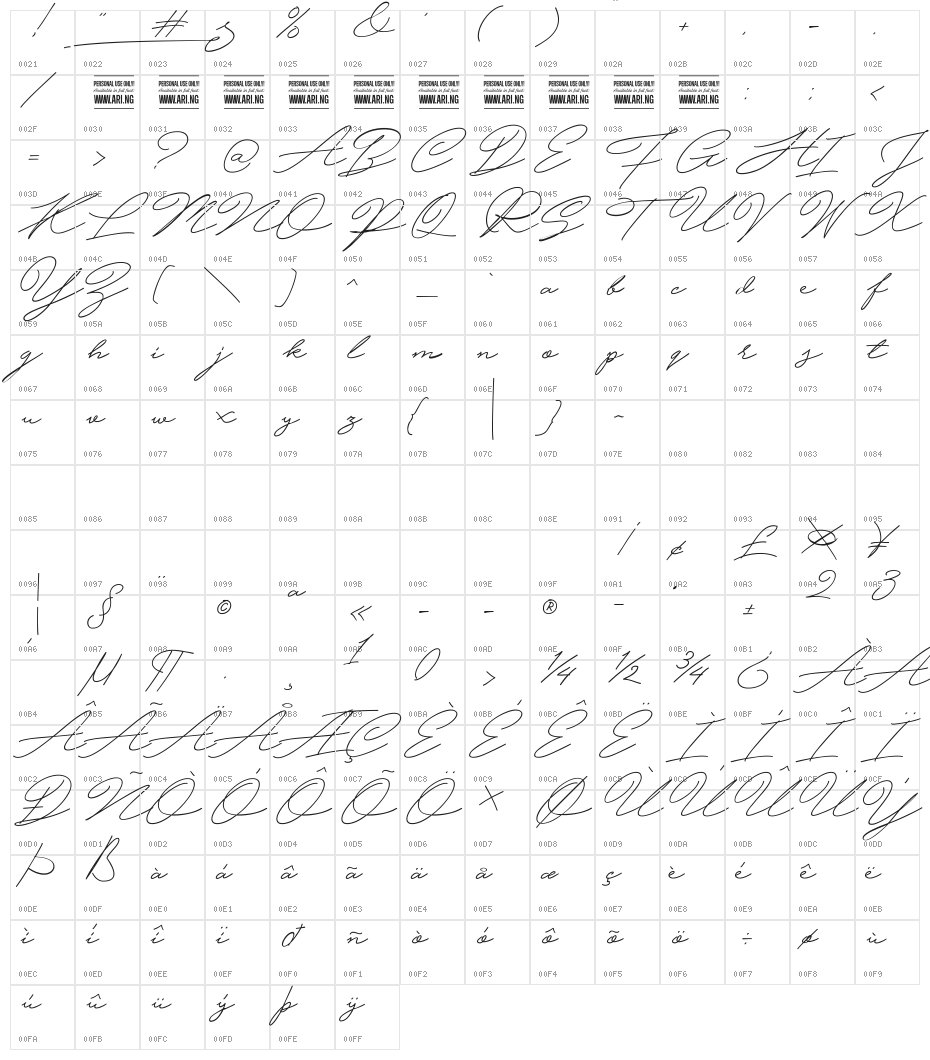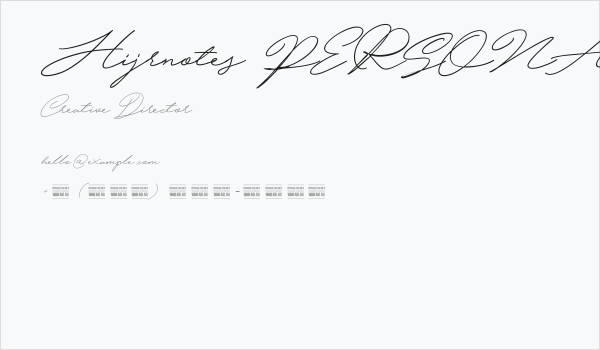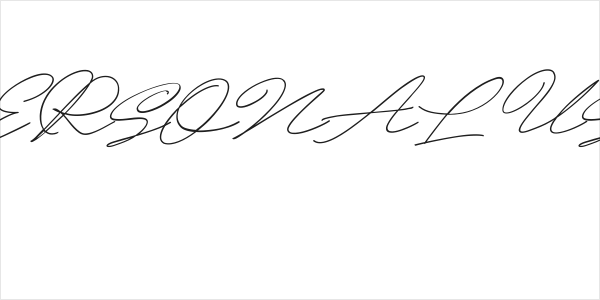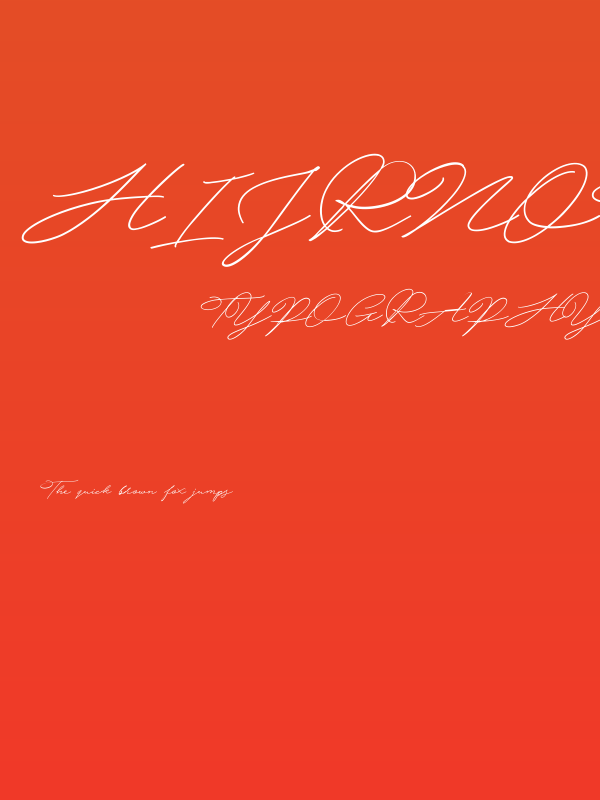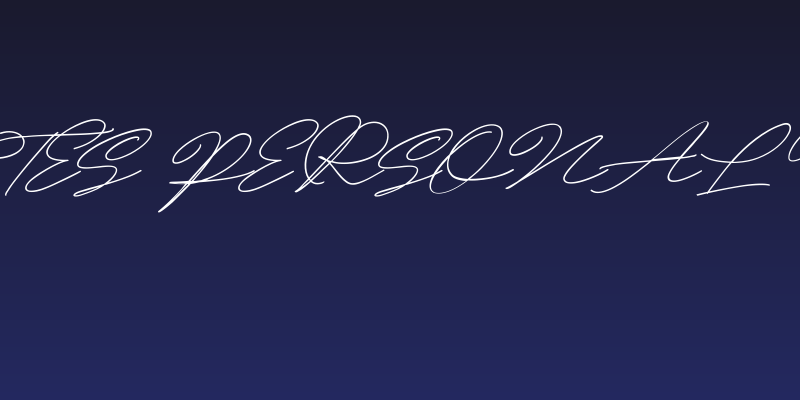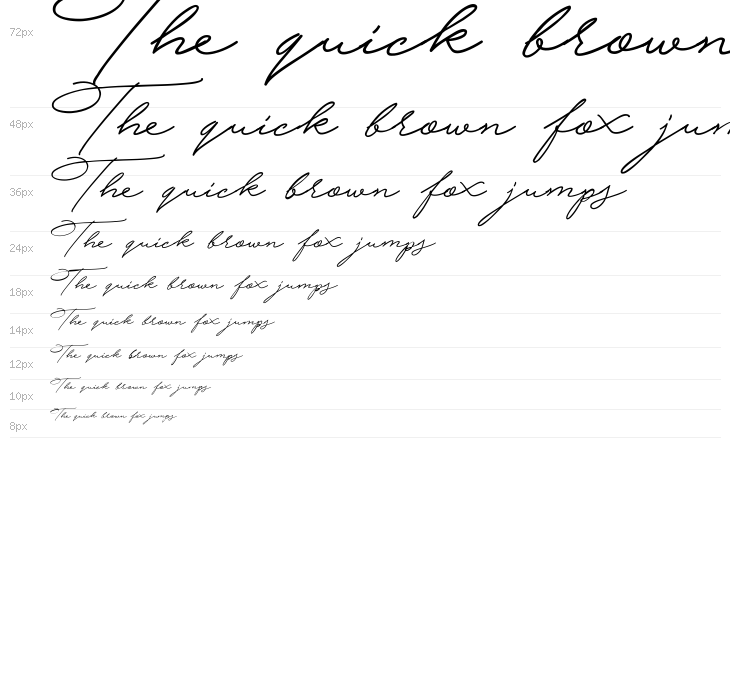
Hijrnotes PERSONAL USE ONLY Font
Hijrnotes PERSONAL USE ONLY Description
This elegant script font features a fluid and graceful style, reminiscent of traditional cursive handwriting. The letters are interconnected with smooth, flowing lines that create a sense of continuity and movement. The uppercase letters are slightly more ornate, with subtle flourishes that add a touch of sophistication. The lowercase letters maintain a consistent slant, enhancing the overall harmony of the design. The numerals and special characters are crafted with the same attention to detail, ensuring a cohesive look across all elements. This font exudes a sense of elegance and refinement, making it suitable for projects that require a personal and artistic touch.
| Use Case | Logos, Invitations, Personal branding |
| Proposed Projects | Ideal for wedding invitations, greeting cards, personal branding, and artistic projects. |